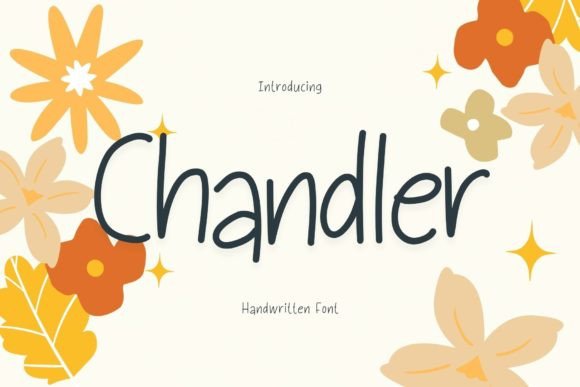
Behold the Chandler Font, where grace and elegance intertwine to create a visual symphony. Its meticulously crafted curves and impeccable balance are a testament to the art of typography. Experience the allure of Chandler Font, a beacon of timeless beauty that illuminates your designs with a touch of modern finesse.
Unleash your creativity with Chandler Font, the perfect companion for card designs. Adorn your invitations, greeting cards, and special announcements with elegance that speaks volumes. Let your words dance gracefully across the page, carried by the refined strokes of Chandler Font. Each letterform is a masterpiece, beckoning your audience to immerse themselves in the beauty of your message.
Chandler Font is more than just a font; it's an expression of your individuality. Its versatility extends beyond card design, making it an ideal choice for branding, editorial layouts, and even social media graphics. Let Chandler Font elevate your designs, adding a touch of sophistication that sets you apart from the ordinary.
With Chandler Font, you gain access to a treasure trove of creative possibilities. Its clean lines and balanced letterforms effortlessly adapt to various design styles, allowing you to create cohesive and visually stunning compositions. Discover the endless potential of Chandler Font, a font that empowers you to weave your design dreams into reality.
Make Chandler Font your font of choice and embark on a creative journey where elegance and modernity intertwine. Its timeless beauty and versatility will captivate your audience, leaving a lasting impression that resonates with every design you create.